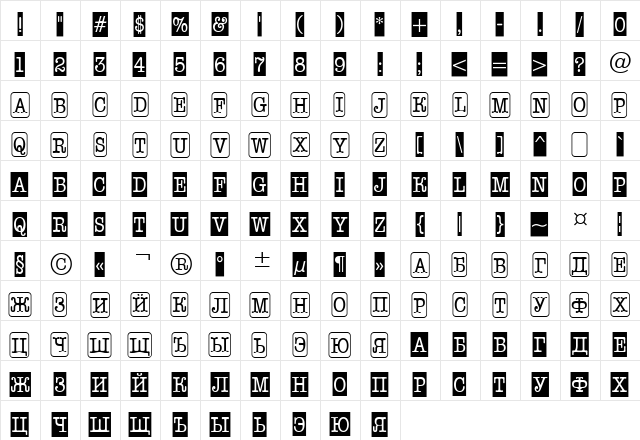
a_OldTyperNrCmCmb3 Regular
Design Context for a_OldTyperNrCmCmb3 Typeface
a_OldTyperNrCmCmb3 is a composed and adaptable typeface that performs quietly and consistently across a wide range of design contexts.